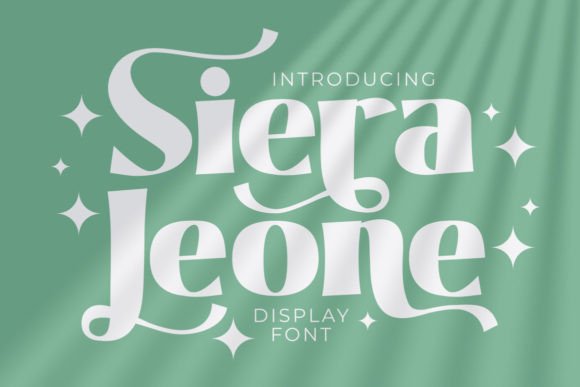
Prepare to be captivated by the enchanting Siera Leone font, a masterpiece crafted to elevate your creations to breathtaking heights. Its bold and gorgeous strokes dance effortlessly across the page, transforming ordinary words into captivating works of art.
Immerse yourself in the world of Siera Leone, where every letter is a stroke of genius. Its clean lines and striking presence make it the perfect choice for creating photobook covers that will leave a lasting impression. Let your memories shine through the pages, elegantly framed by the timeless beauty of this font.
Siera Leone's versatility knows no bounds. Its bold character lends itself to eye-catching headlines, while its delicate details add a touch of sophistication to body text. Whether you're crafting social media posts, website banners, or stunning logos, Siera Leone will elevate your designs to new heights.
But don't just take our word for it. The PUA encoding of Siera Leone empowers you to unleash your creativity. Access a world of glyphs and ligatures with ease, unlocking endless possibilities for customization. Let your imagination soar and create designs that are uniquely yours.